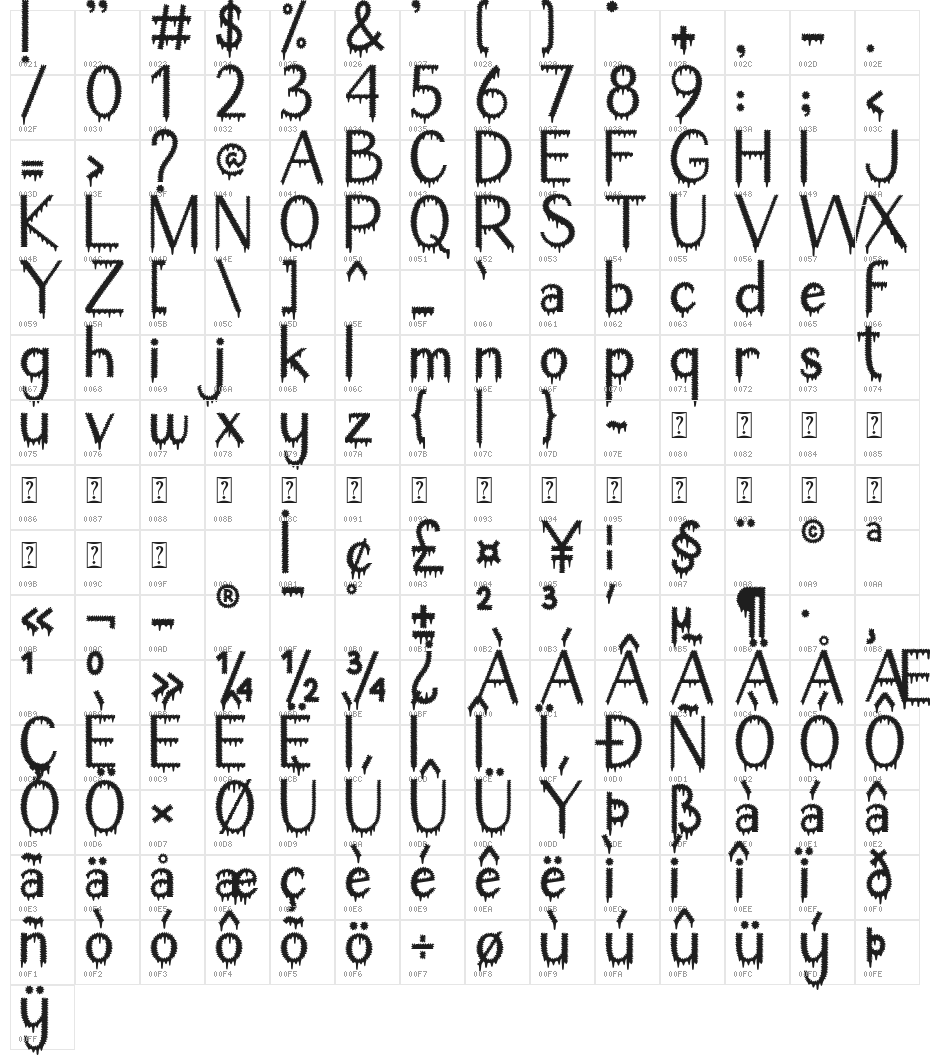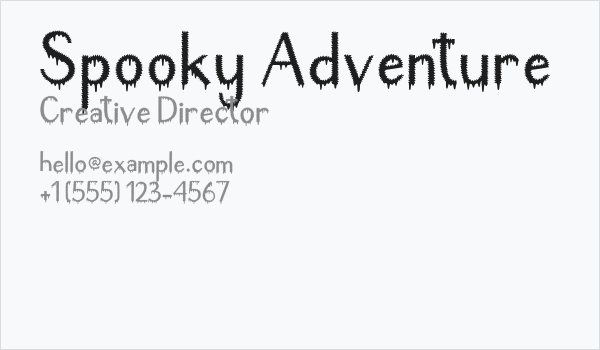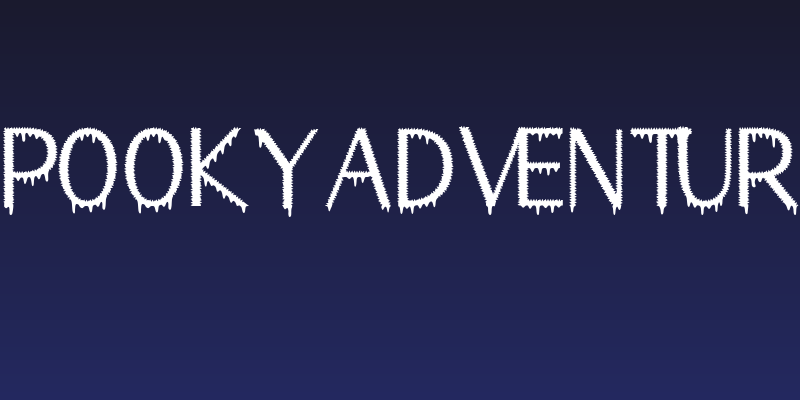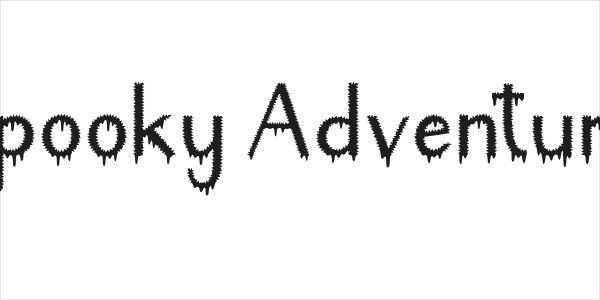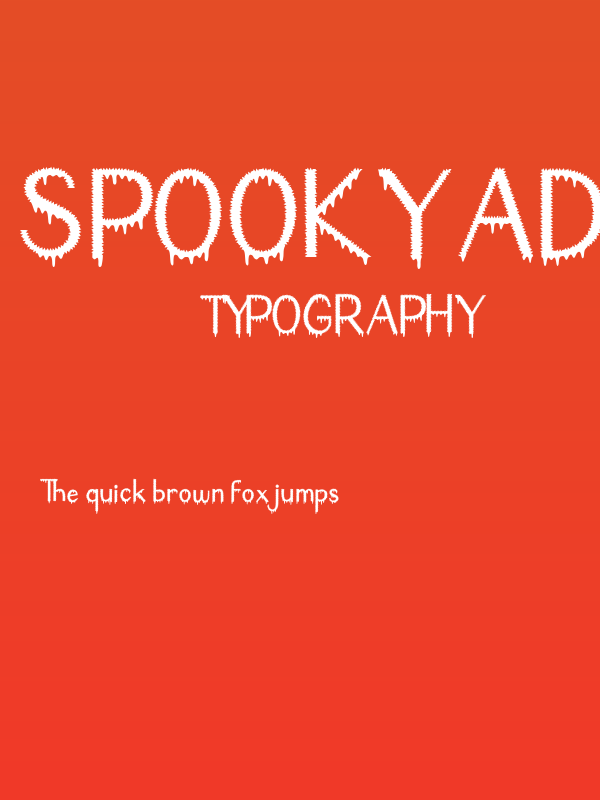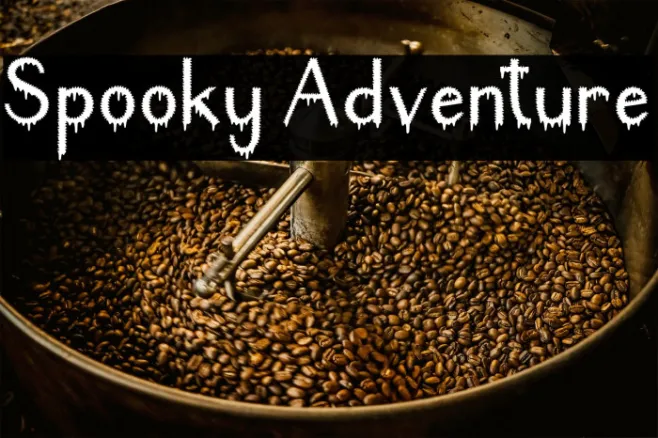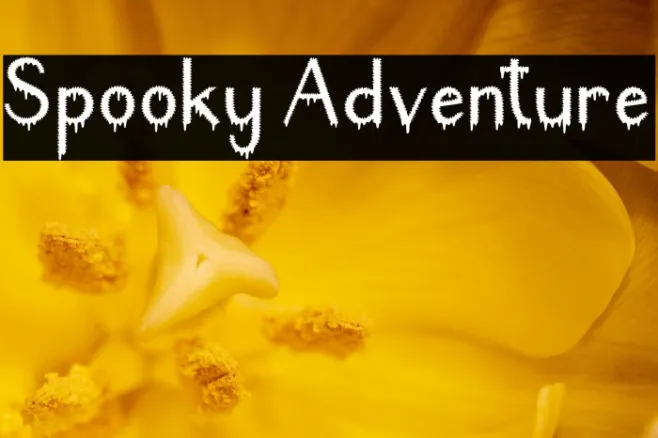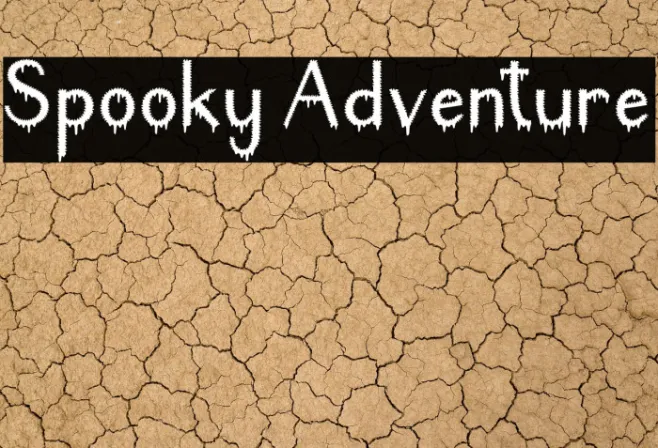
Spooky Adventure Font
Spooky Adventure Description
This font features a playful and eerie design, perfect for Halloween or spooky-themed projects. The letters have a jagged, dripping appearance, reminiscent of slime or melting wax, which adds a sense of movement and unease. The uppercase and lowercase characters maintain a consistent style, with sharp edges and irregular shapes that enhance the unsettling aesthetic. Numbers and special characters follow the same design principles, ensuring a cohesive look across all text elements. The font's unique style makes it ideal for capturing attention and conveying a sense of mystery or horror.